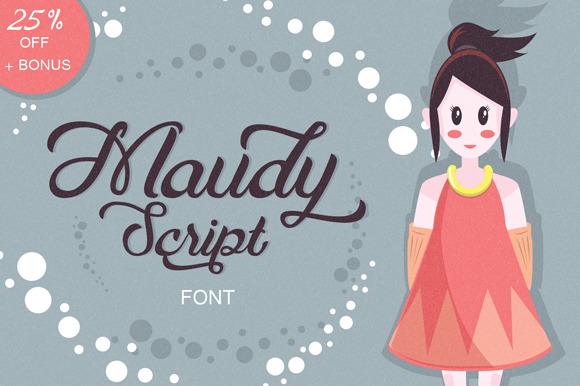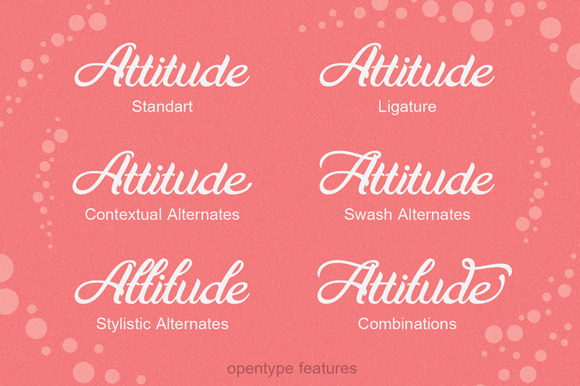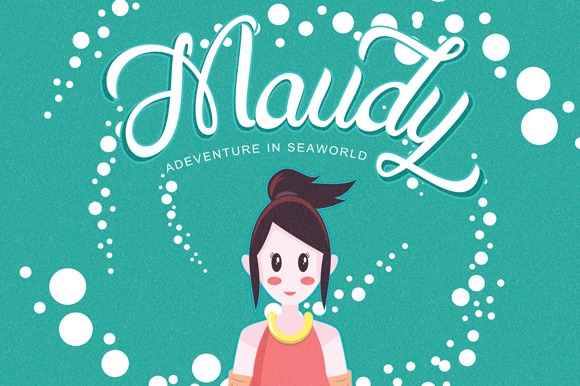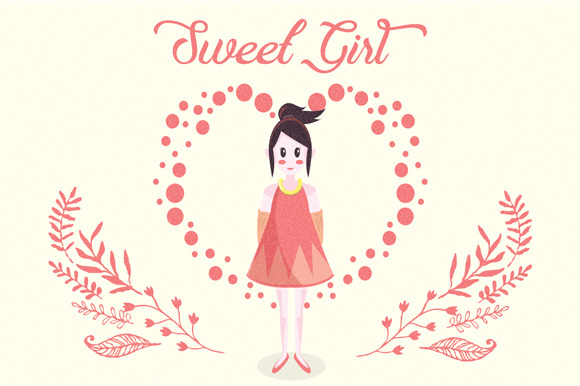
Maudy Script + Bonus by ianmikraz
Maudy Script is bold, modern & multipurpose typeface that natural handwriting brush lettering. Suitable for logo, packaging, cover book title, poster, t-shirt, wedding invitation, greeting card, etc.
272 glyphs and alternate character contain with opentype features. Stylistic alternates, Ornament, Swash and more.You can access all those alternate characters by using OpenType savvy programs such as Adobe Illustrator and Adobe InDesign.